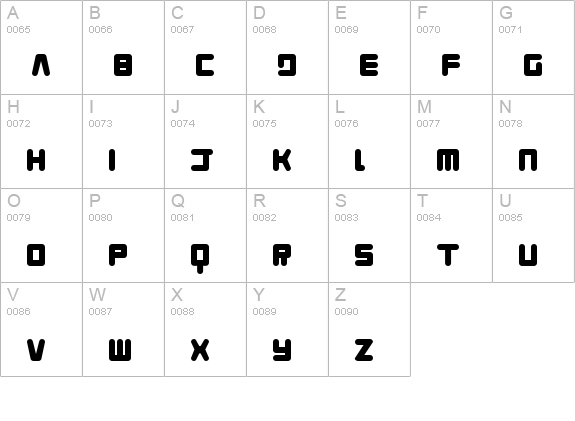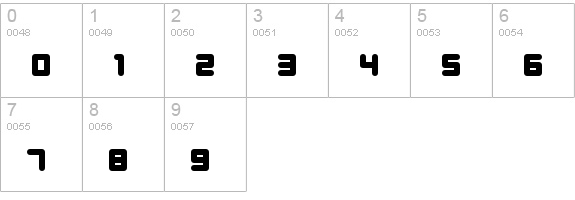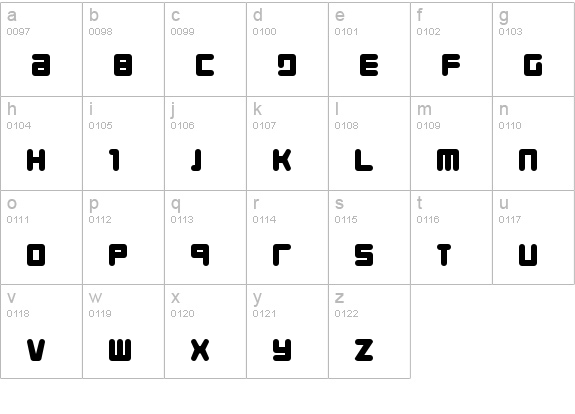
Young Techs Font Details
Young Techs font is a modern and sleek typeface designed for tech-savvy individuals looking to add a futuristic touch to their projects. With its clean lines and sharp edges, this font exudes a sense of innovation and forward-thinking. The geometric shapes and bold letterforms of Young Techs make it perfect for use in digital designs, tech websites, app interfaces, and more. The best part? Young Techs font is completely free to download at FontsMarket.com. Whether you are a graphic designer, web developer, or tech enthusiast, you can easily access this cutting-edge font to elevate your creations. Don't miss out on the opportunity to enhance your projects with the dynamic and contemporary style of Young Techs font. Download it today and let your creativity shine!